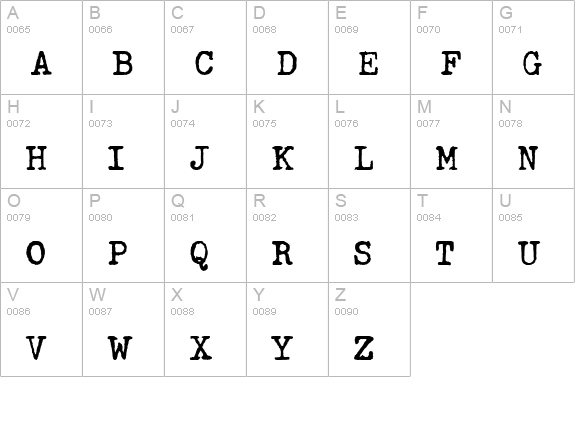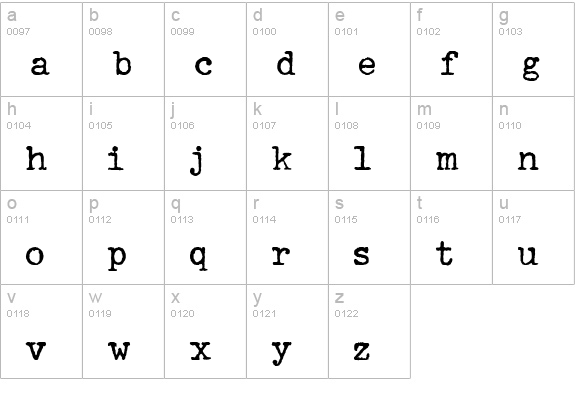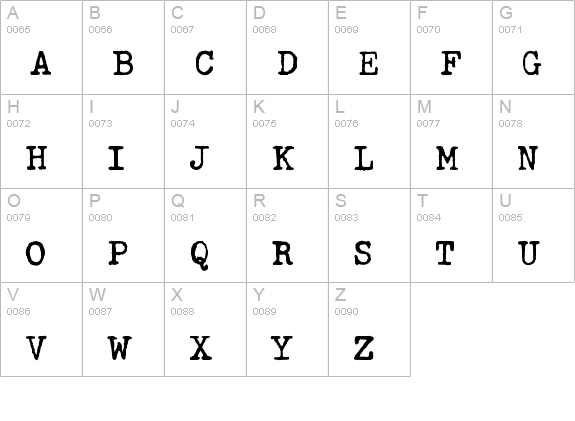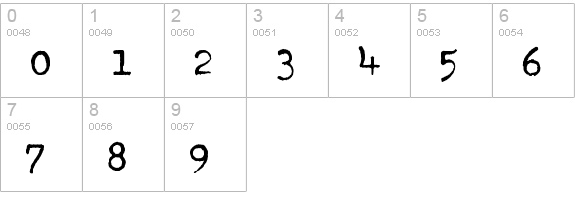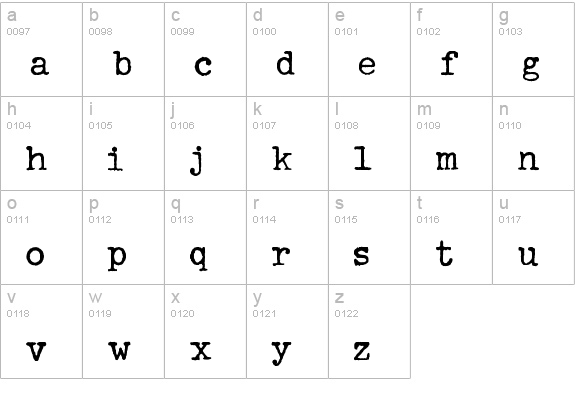
PFDumbOldTypewriter One Normal is the standard, neutral variant in the PFDumbOldTypewriter typeface family \xE2\x80\x94 well suited to general body text, paragraphs, and standard typographic work.
PFDumbOldTypewriter One Normal font is a charming and quirky typeface that captures the essence of classic typewriters. Its vintage aesthetic and authentic feel will bring a touch of nostalgia to any project. This font is perfect for adding a unique and personalized touch to your designs, whether you're working on invitations, posters, or branding materials. Best of all, PFDumbOldTypewriter One Normal font is available for free download at FontsMarket.com. You can easily access this versatile font and incorporate its timeless appeal into your creative projects without any cost. Embrace the retro vibes of this typeface and elevate your designs with a touch of old-school charm. Download PFDumbOldTypewriter One Normal font today and unleash your creativity with this freely available resource.